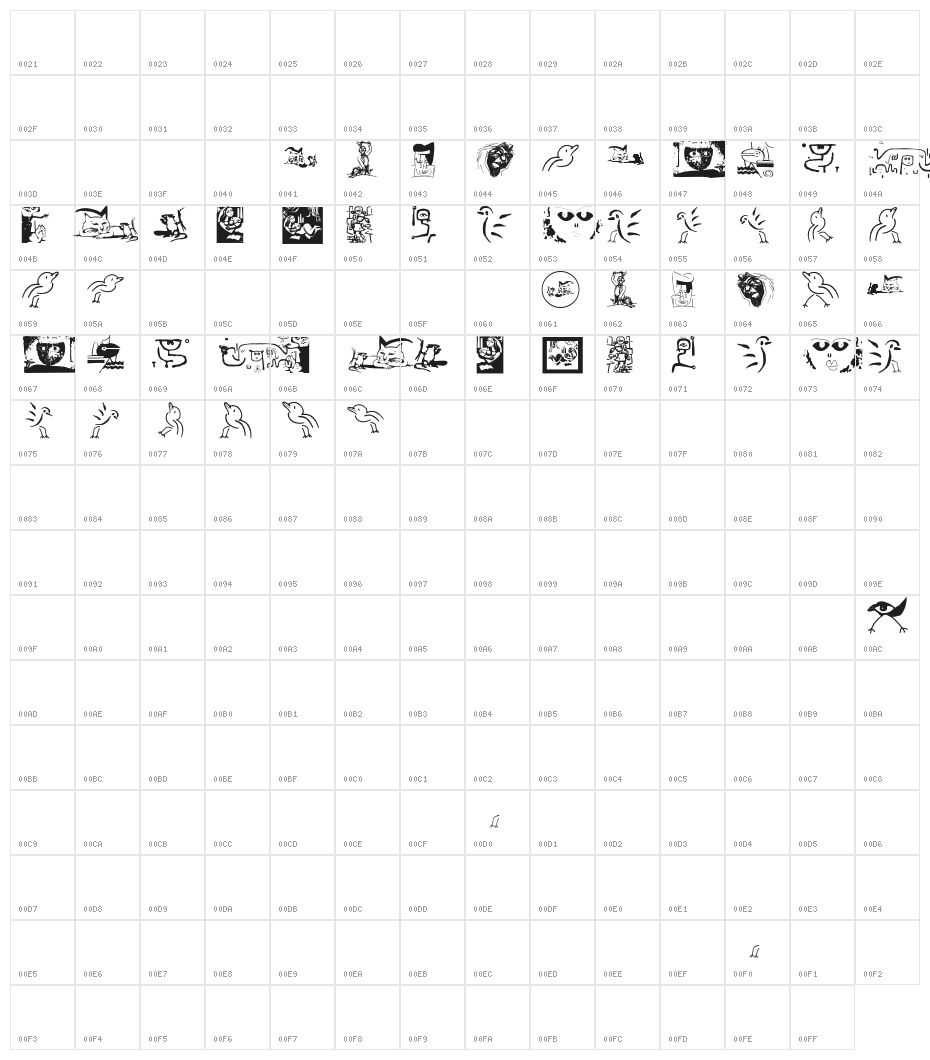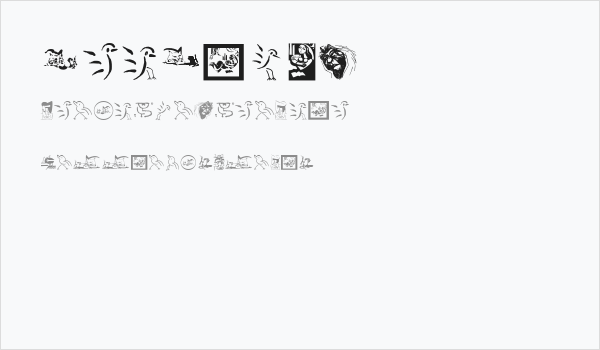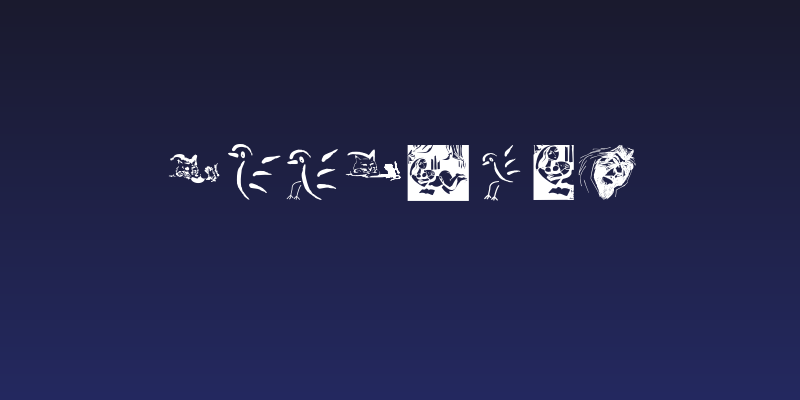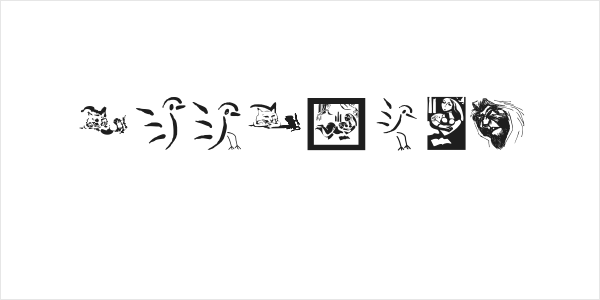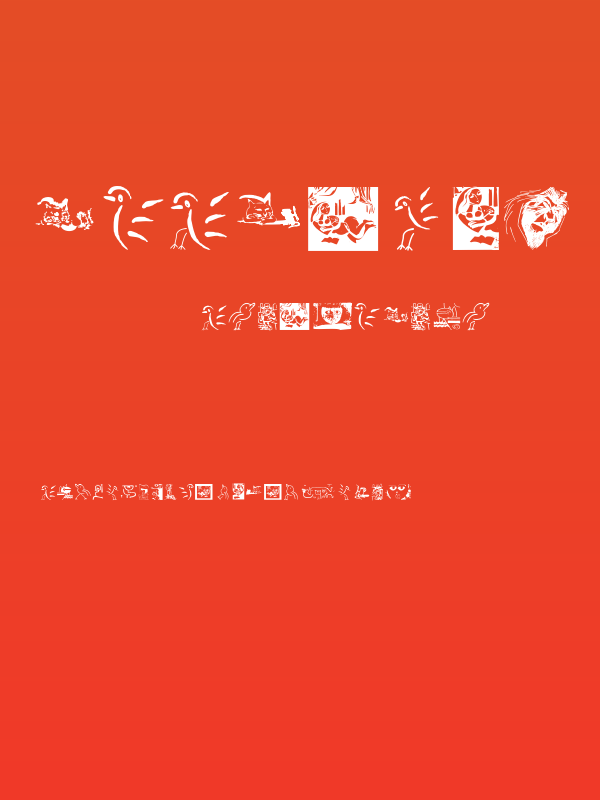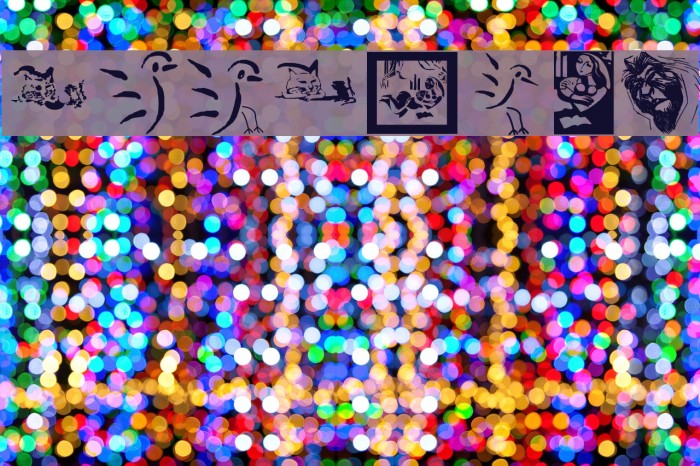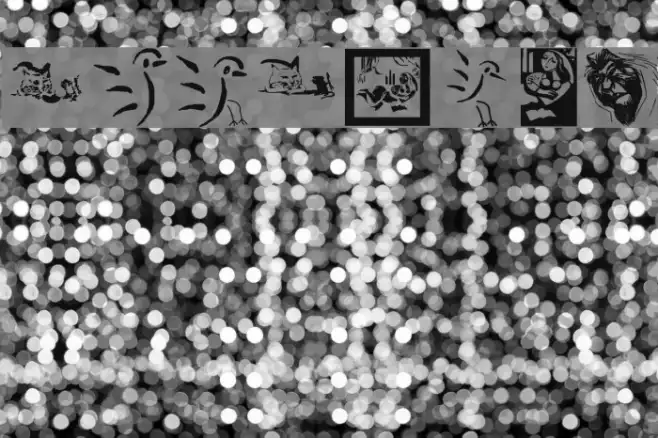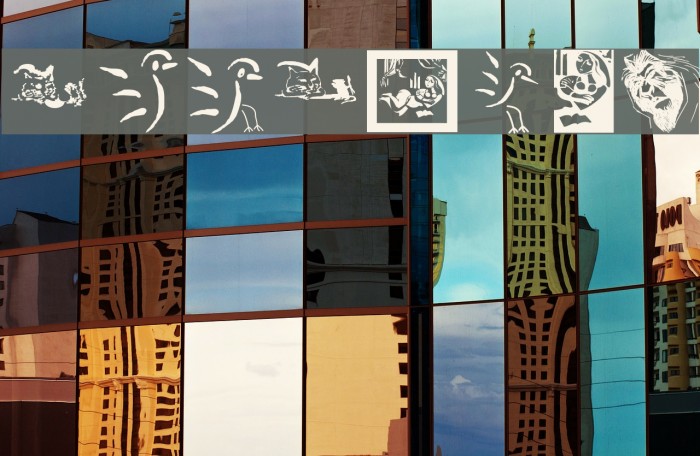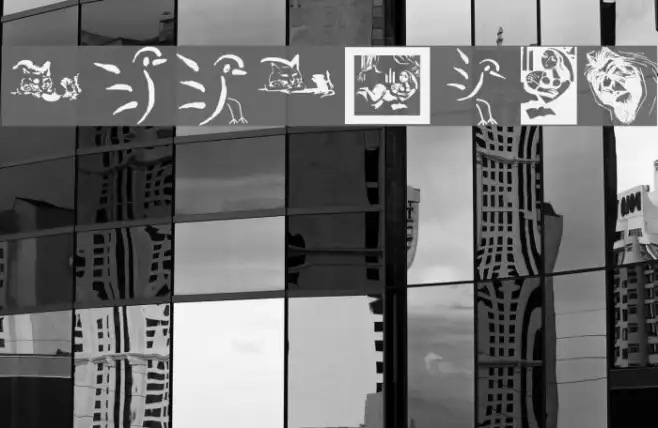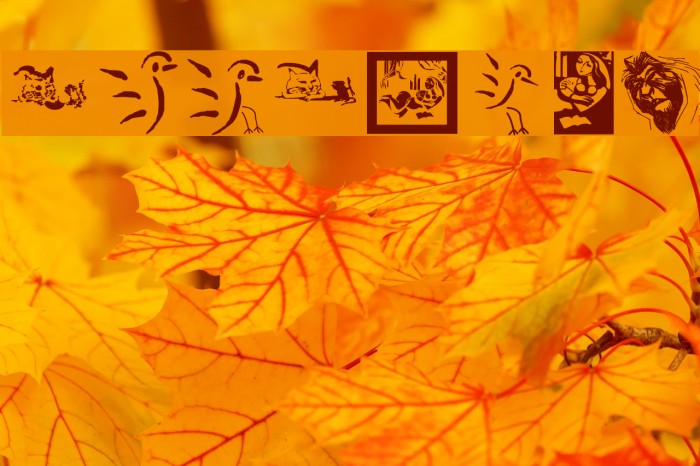
ArtFound Font
ArtFound Description
A highly decorative and illustrative font composed of unique, hand-drawn art pieces and whimsical sketches for each character, featuring playful animals, faces, and abstract designs. Each glyph is distinct and visually complex, making it more of an art font than a traditional typeface.
| Overall Style | Decorative, Whimsical, Artistic |
| Use Case | Logos, Headlines, Posters, Artistic projects |
| Proposed Projects | Art posters, creative branding, children’s books, event invitations, album covers, decorative headings. |